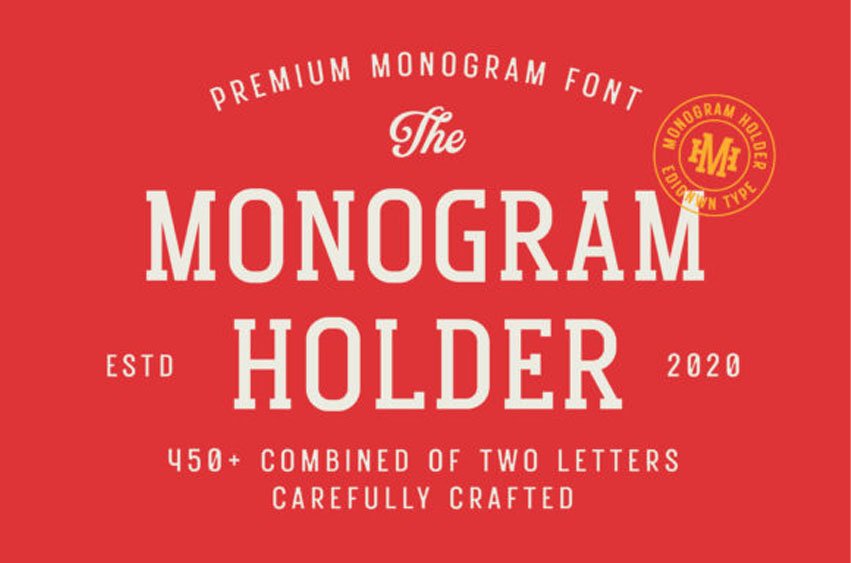
Monogram Holder Font is a cool, simple, vintage styled serif font. This font is PUA encoded which means you can access all of the glyphs and swashes with ease!